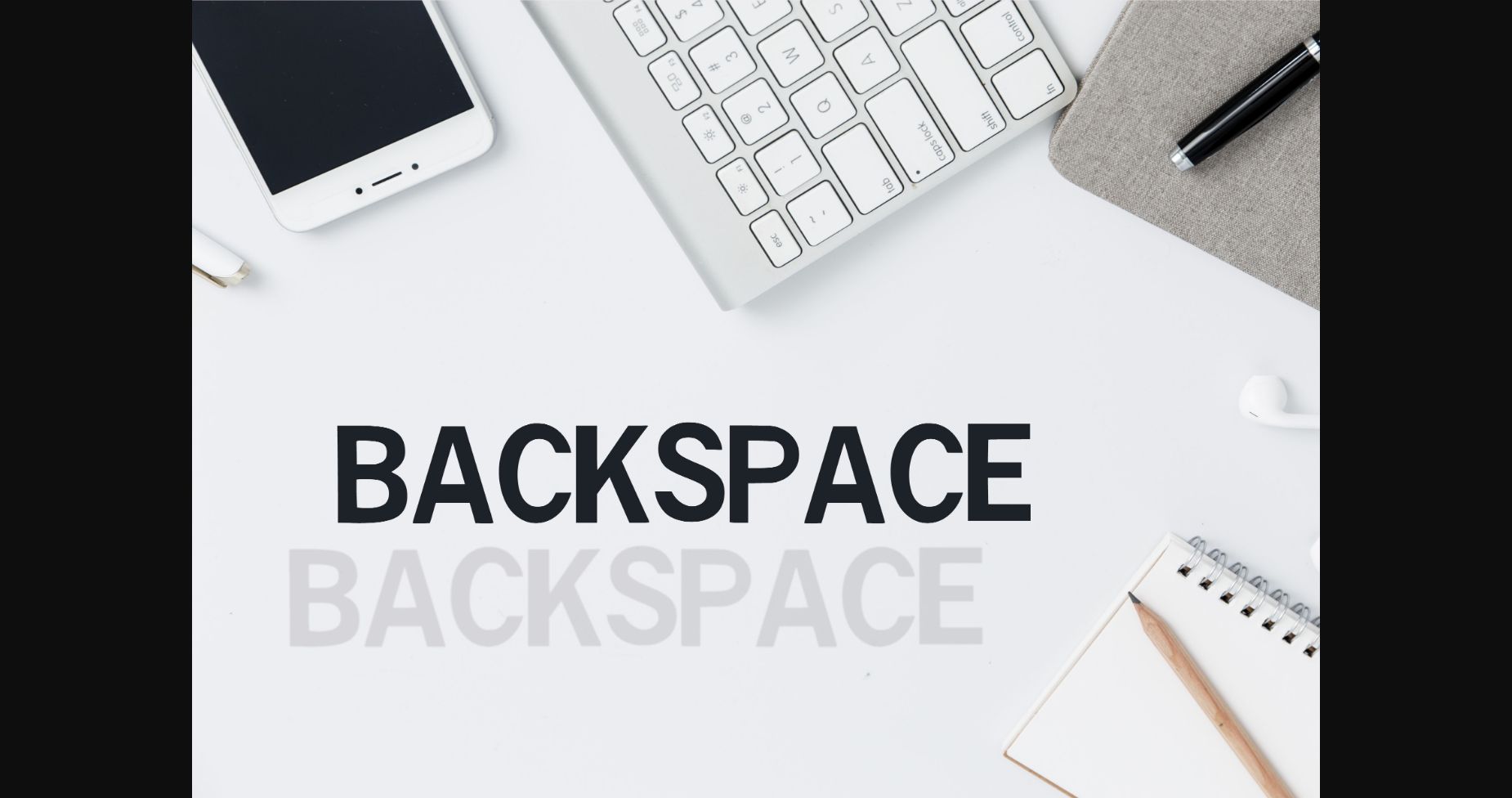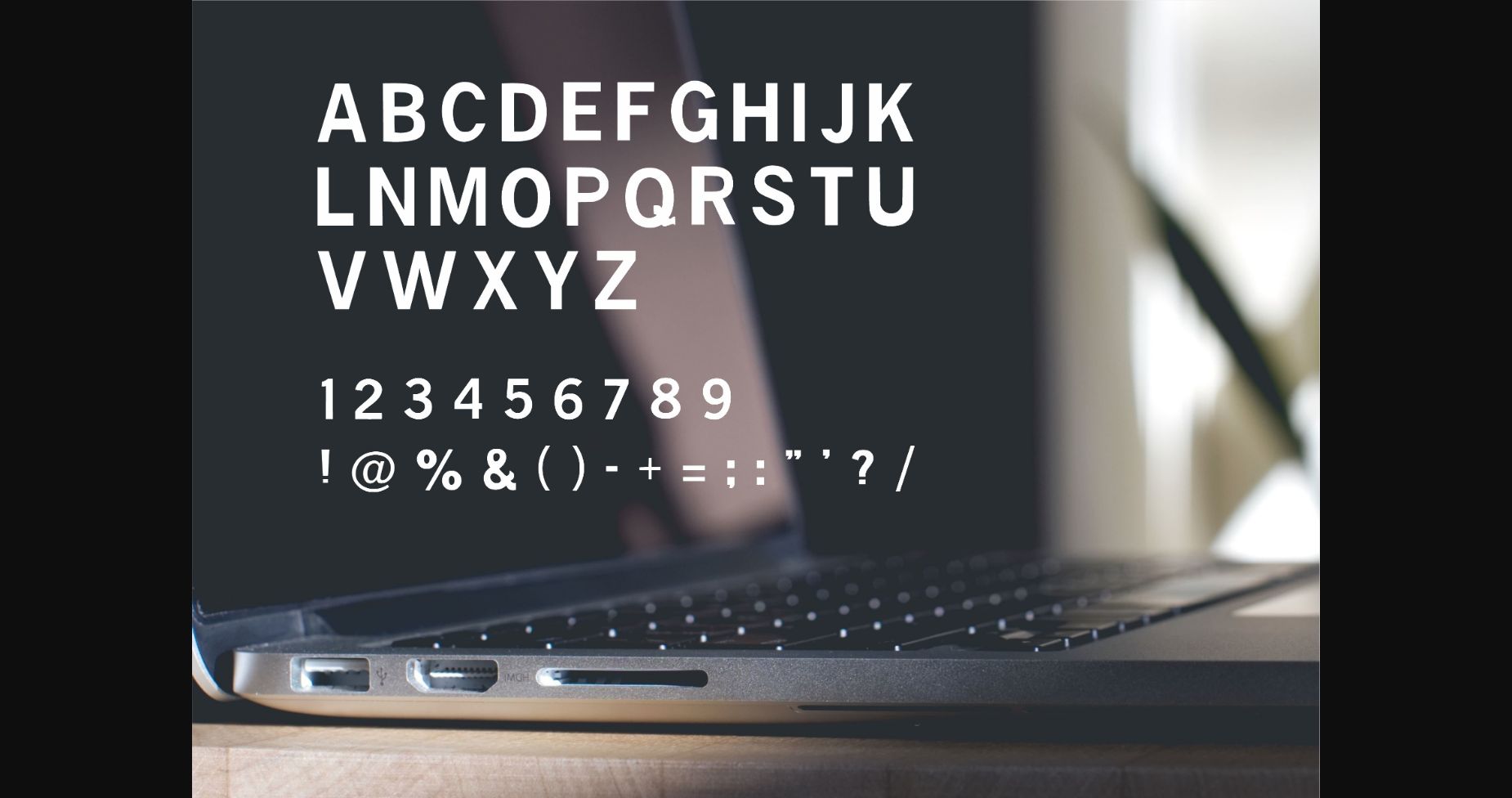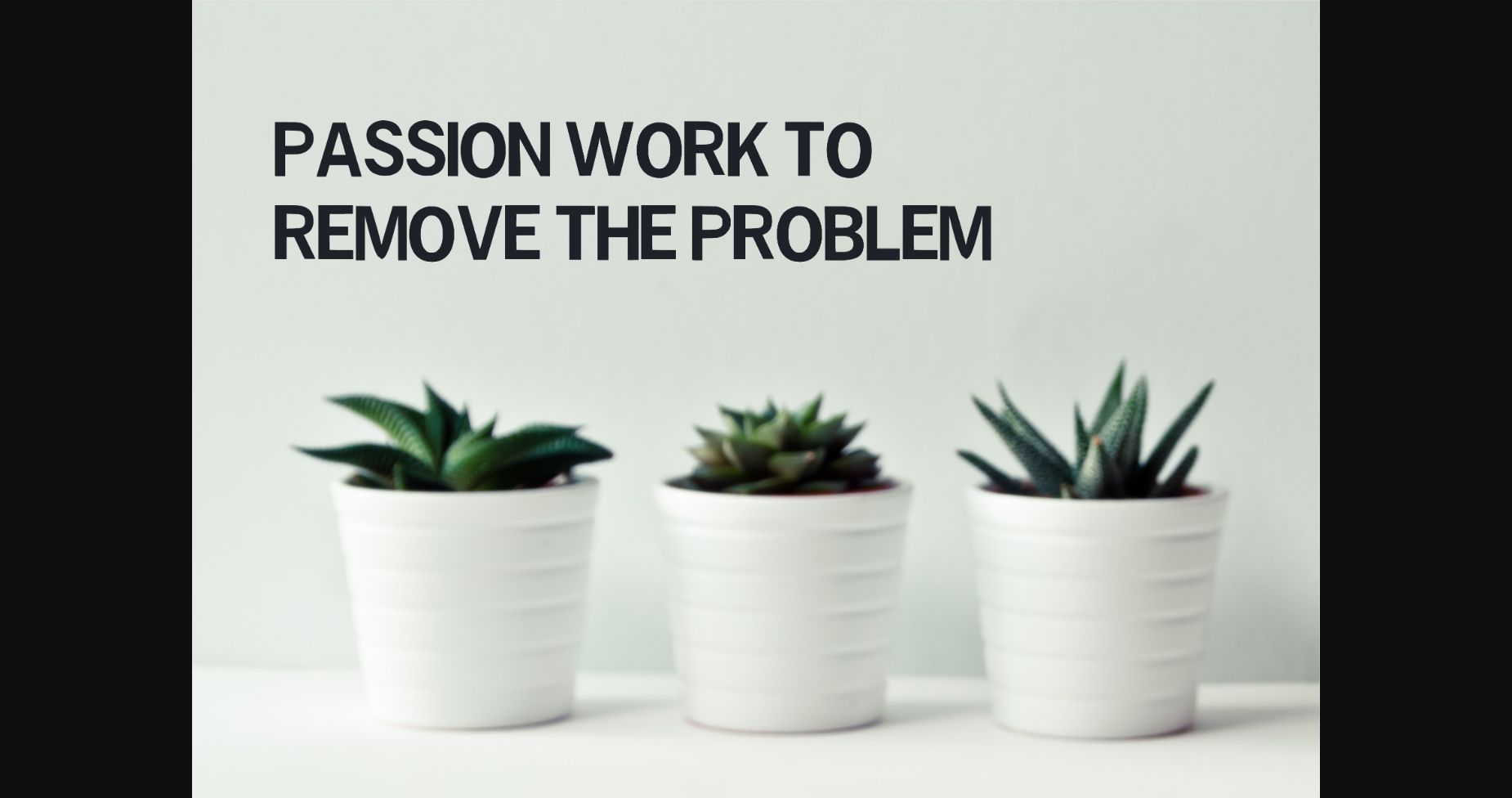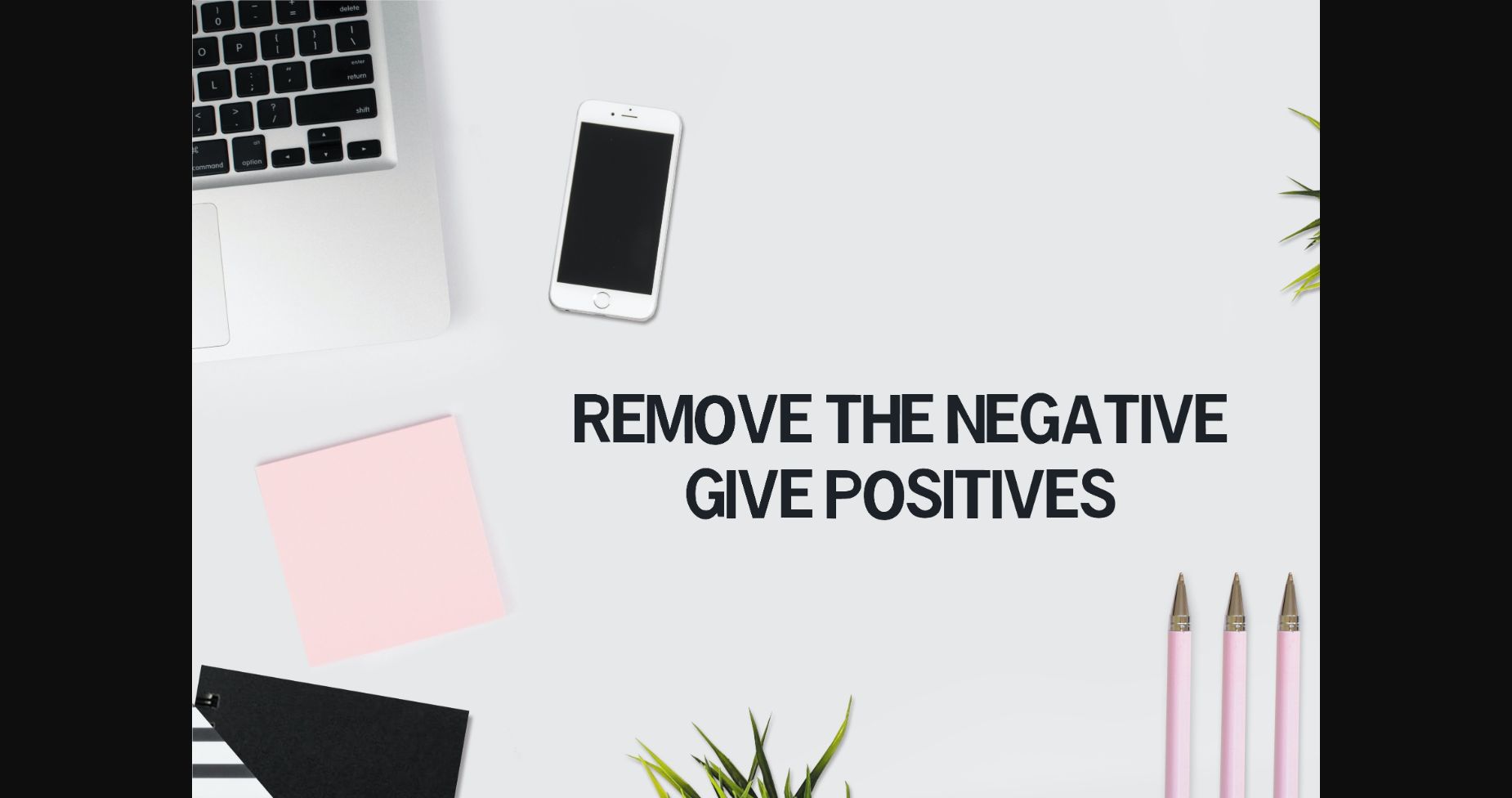
HomeSans Serif FontsBackspace Font Sans Serif Fonts Backspace Font FacebookXPinterestWhatsApp 1 of 6 ... Backspace Font Poster 2... Backspace Font Poster 3... Backspace Font Poster 4... Backspace Font Poster 5... Backspace Font Poster 6... About Backspace Font Backspace is a minimal sans serif font. It can easily fit into a very large array of projects, so add it to your creative designs and watch how it makes them shine! DOWNLOAD NOW People also explored Reula Maulina Cafune Font Brokolino Text Font Sunday Magic Font Daily Walker Font Tribalmono Font Penny Wise JNL Font Proeble Font Hello Sunday Font 336 0 TagsBackspace Font Previous articleRegalia FontNext articleOlarwe Font LEAVE A REPLY Cancel reply Comment: Please enter your comment! Name:* Please enter your name here Email:* You have entered an incorrect email address! Please enter your email address here Website: Save my name, email, and website in this browser for the next time I comment. Personal Use Free Harmony Personal Use Free Read more about this font Messages Personal Use Free Read more about this font Eits Personal Use Free Read more about this font Susanna Personal Use Free Read more about this font BLOG Free Fonts Risk: Why Free Fonts Can Be Dangerous for Designers Free Fonts Risk: Why Free Fonts Can Be Dangerous for Designers Using free fonts is a common practice in web and graphic design. However, the... To increase your work productivity, choose the most readable fonts. Transform Your Website: Elevate Your Typography with 7 Best Web Font Generators Top 7 Google Fonts Alternatives for Faster and Privacy-Friendly Web Design (2025)